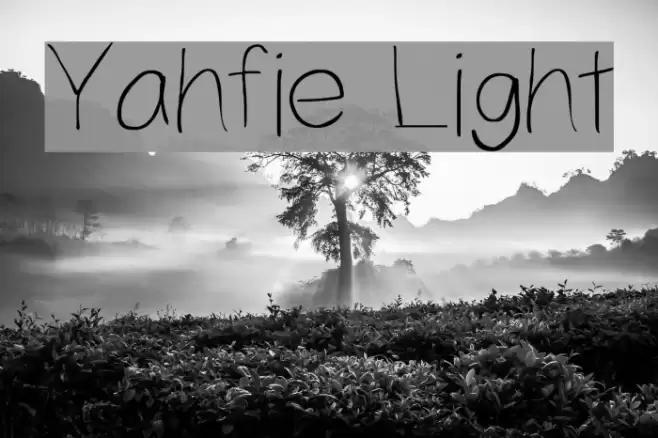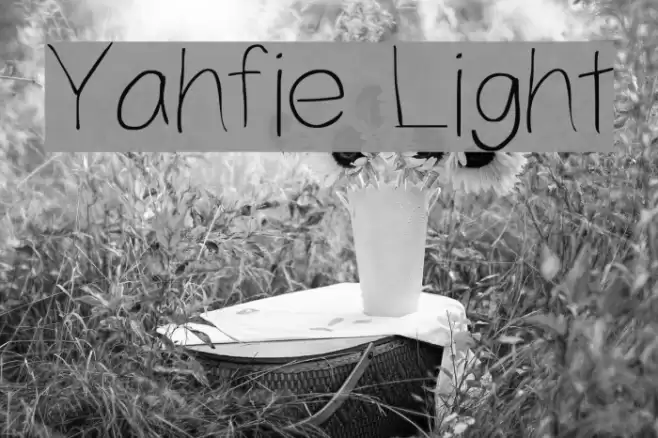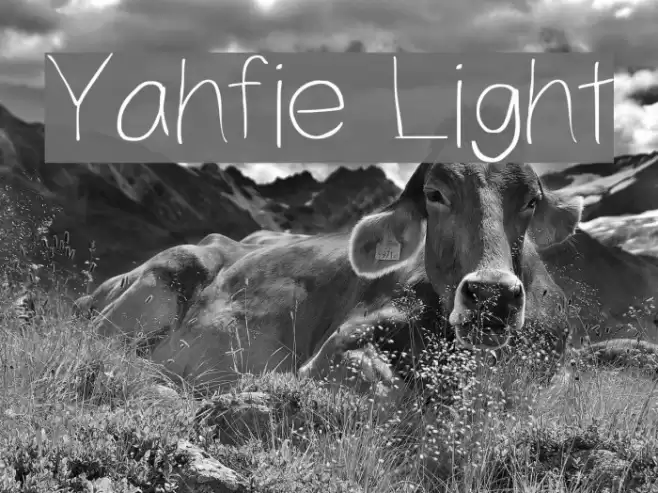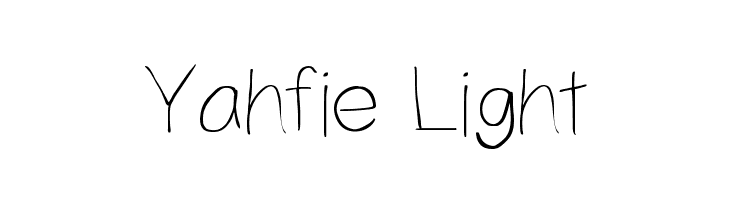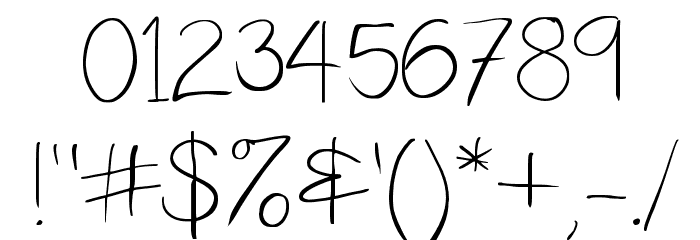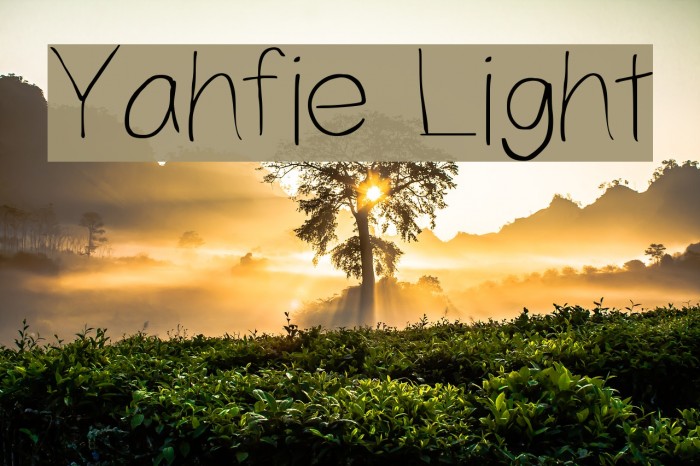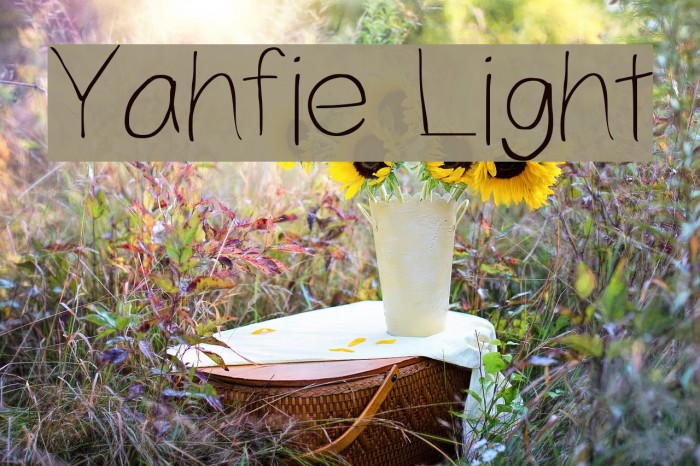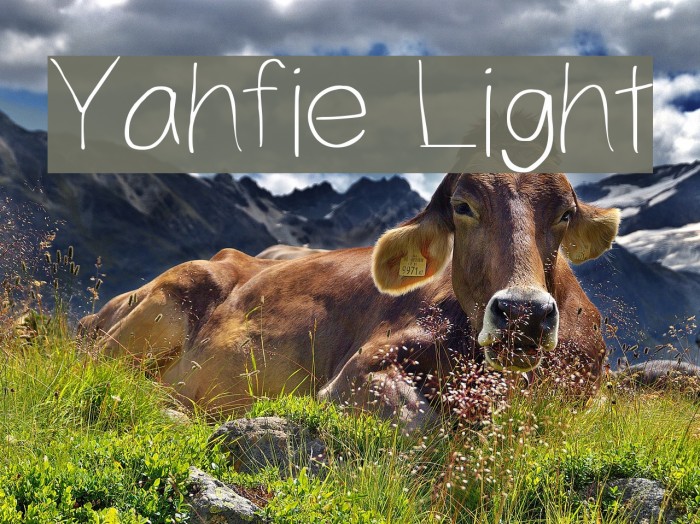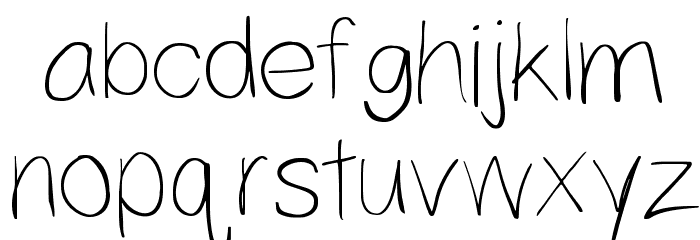
Yahfie Light Font
Yahfie Light Description
This font features a playful and whimsical handwritten style, characterized by its irregular strokes and casual appearance. The letters are slightly slanted, giving a dynamic and lively feel. The uppercase and lowercase characters maintain a consistent style, with rounded edges and a friendly demeanor. Numbers and special characters follow the same playful aesthetic, making the font suitable for informal and creative projects. The overall look is approachable and fun, ideal for designs that aim to convey a sense of warmth and personality.
A playful, handwritten font with a whimsical and casual style from Uncategorized fonts.
- Proposed Projects: Ideal for children's books, greeting cards, playful branding, and casual invitations.
- Overall Style: Casual, Playful
- Use Case: Headlines, Logos, Informal Text